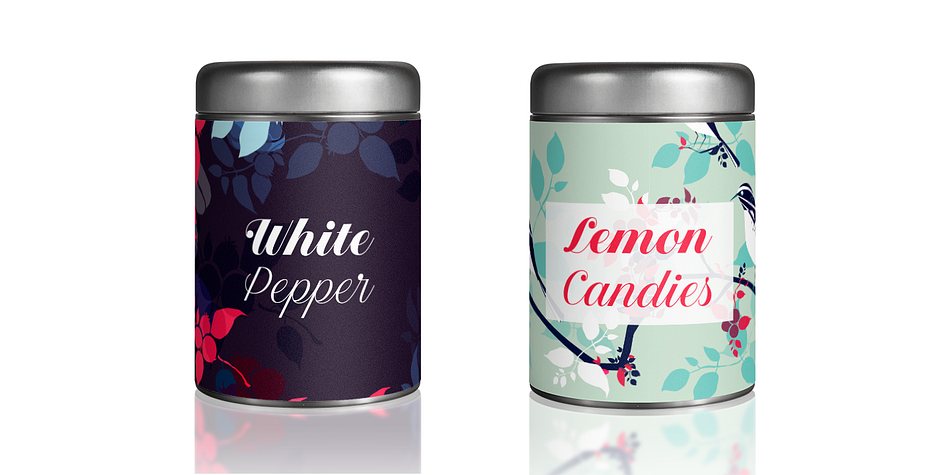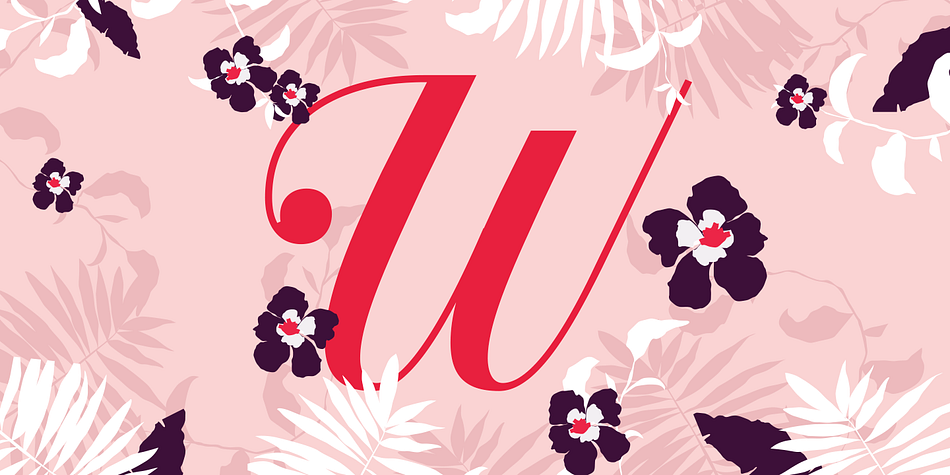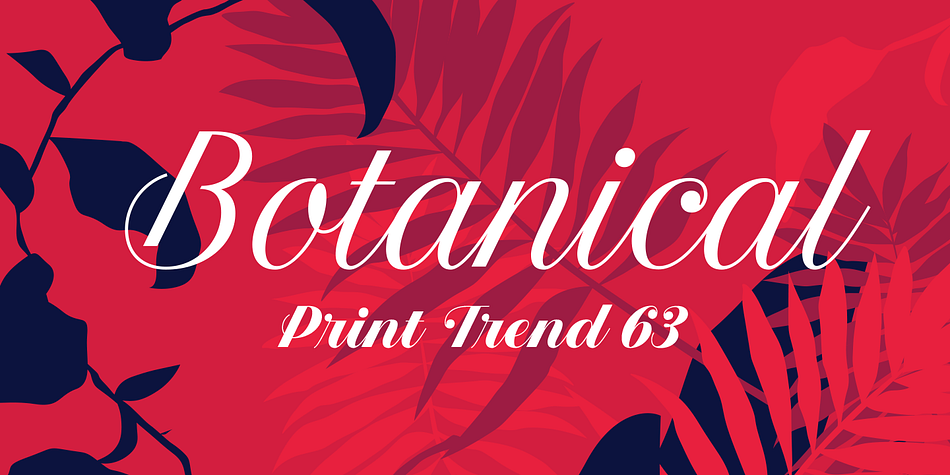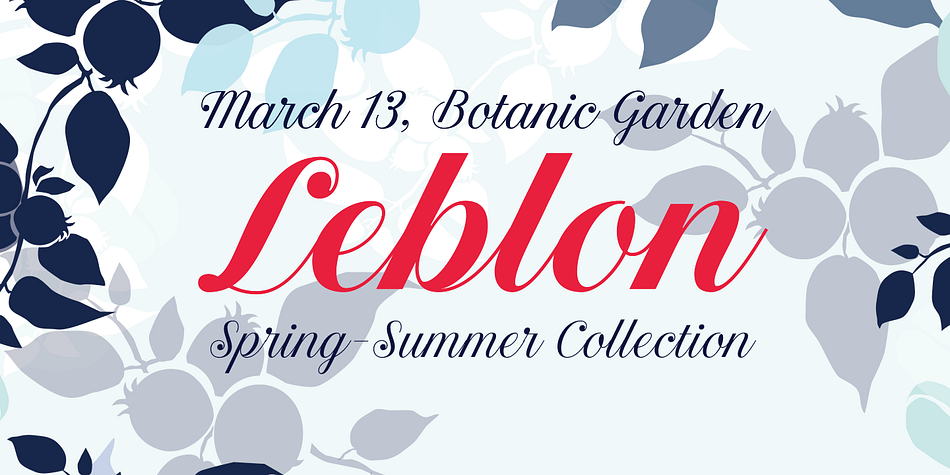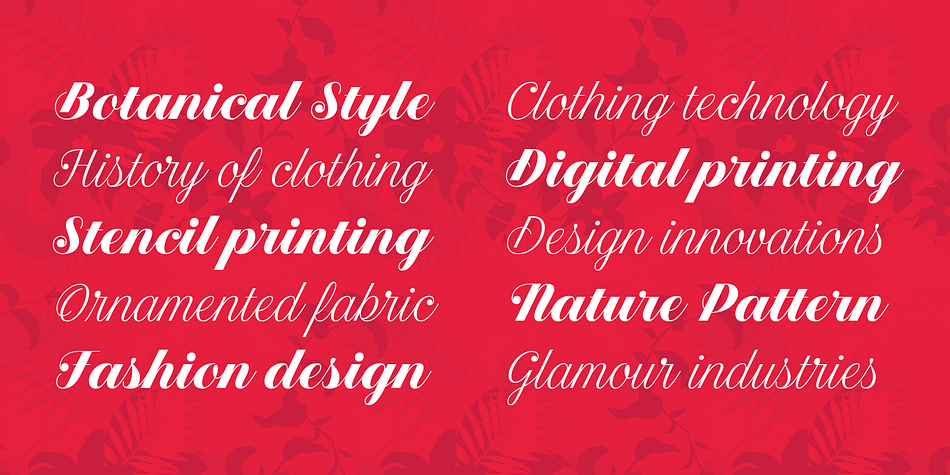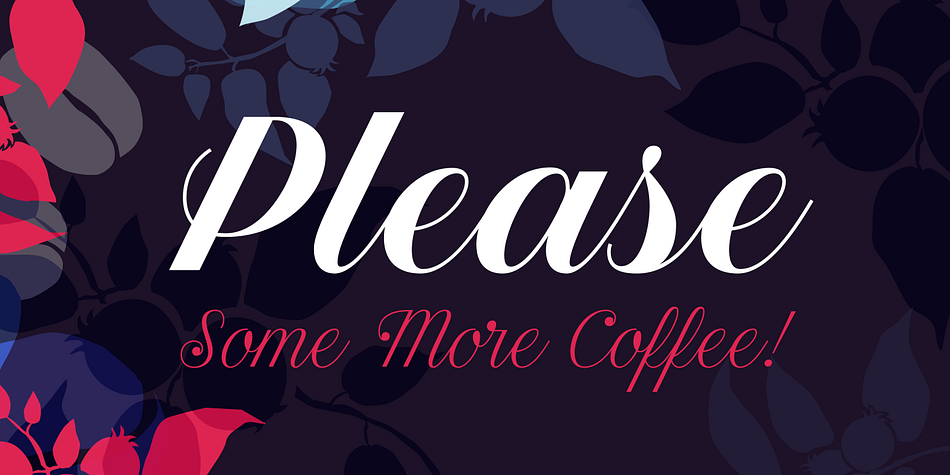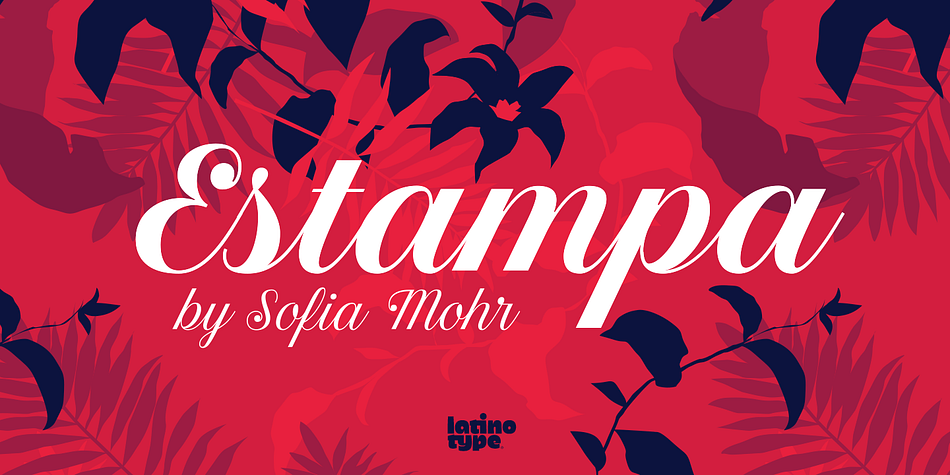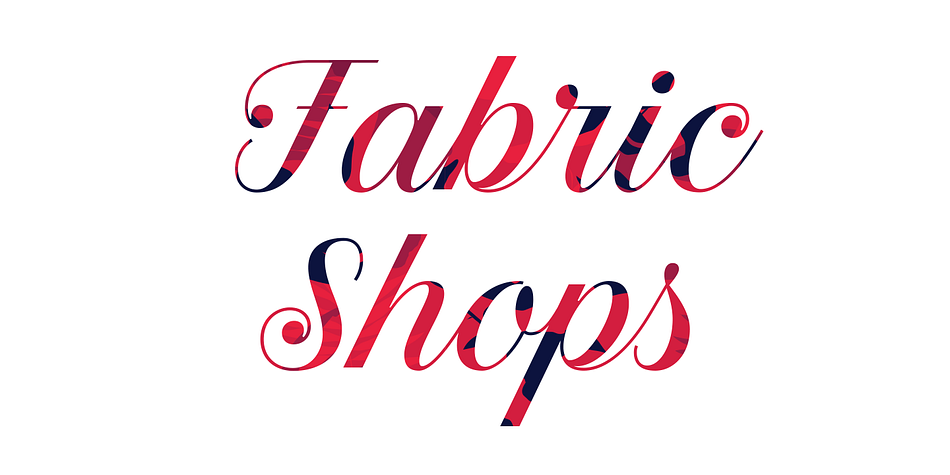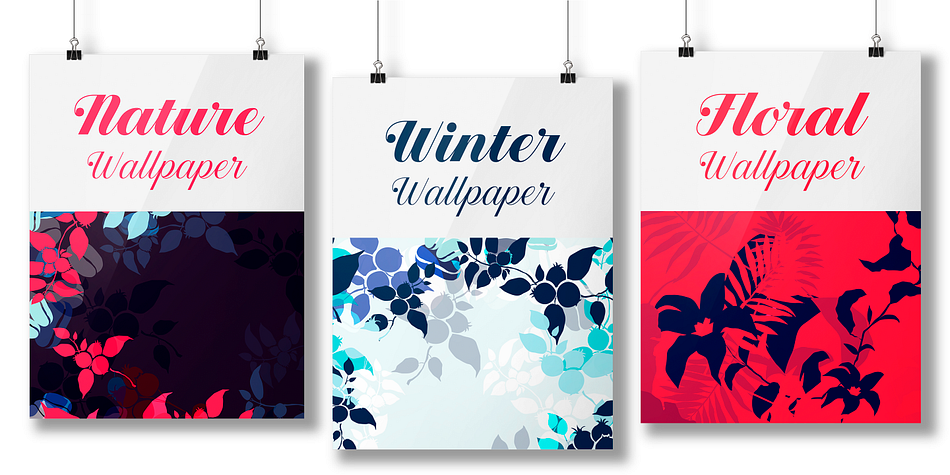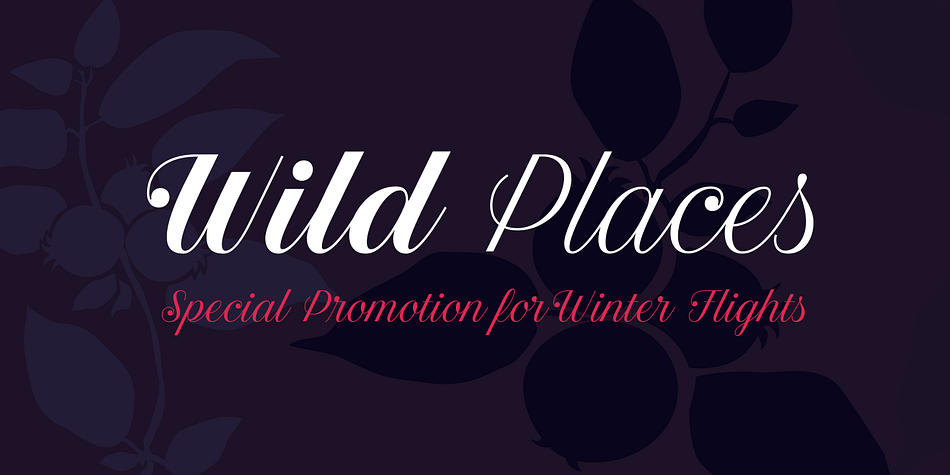
Designed by Sofia Mohr, Estampa Script is a script font family. This typeface has five styles and was published by Latinotype.
Estampa Script is a 5-weight script typeface, designed by Sofia Mohr, with high contrast between thick and thin strokes, and teardrop terminals that remind us of Didone typefaces. These elements are the main feature of the font and give it a very strong character.
Estampa Script is well-suited for clothing, interior design, branding, packaging, advertising and publishing design.